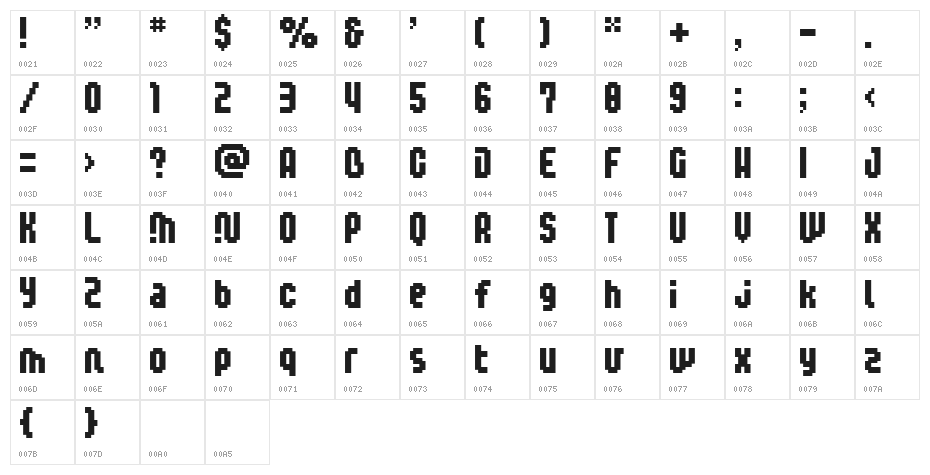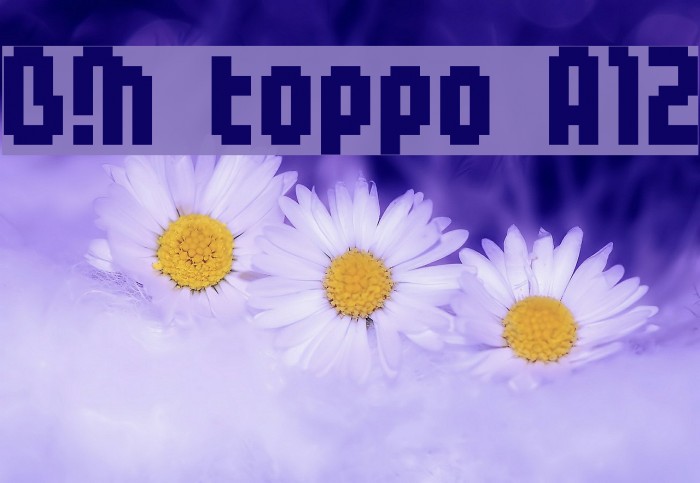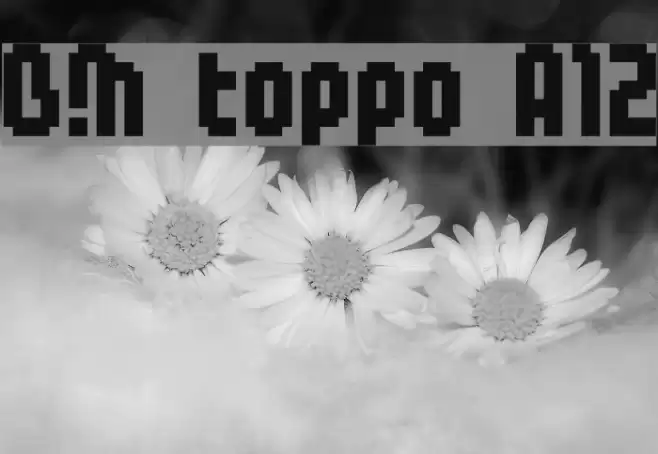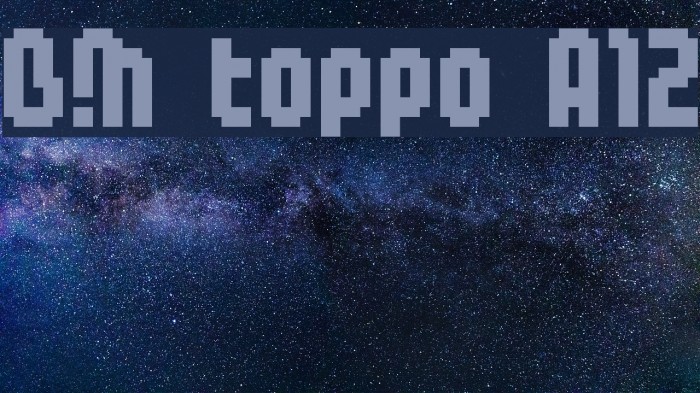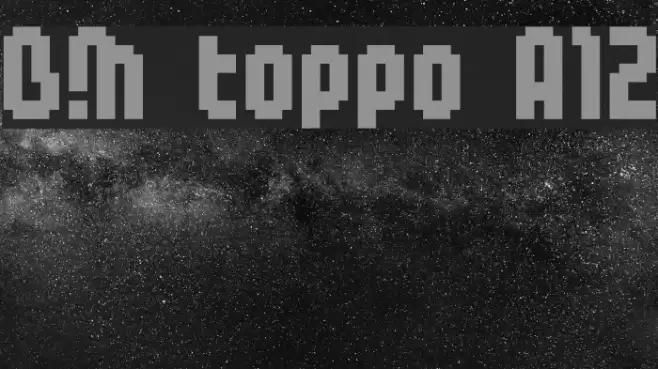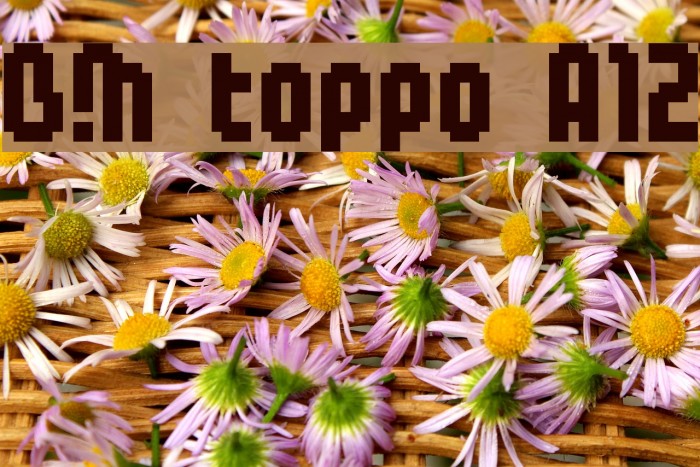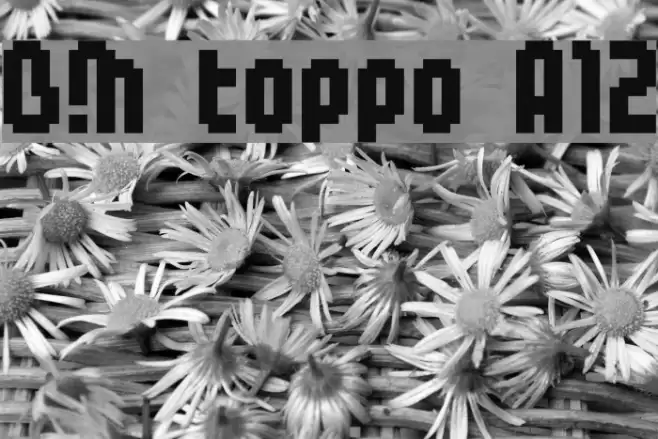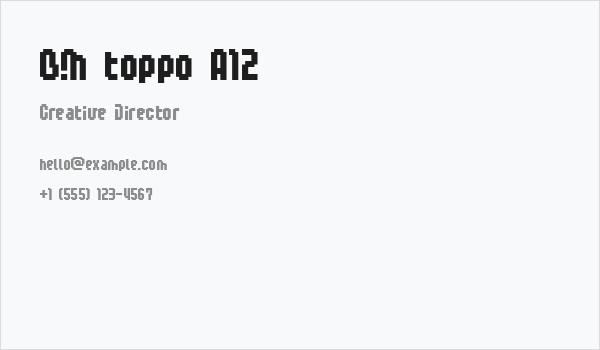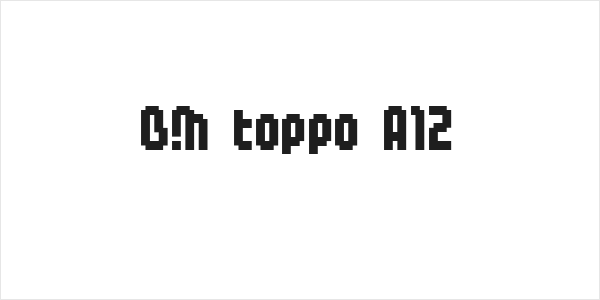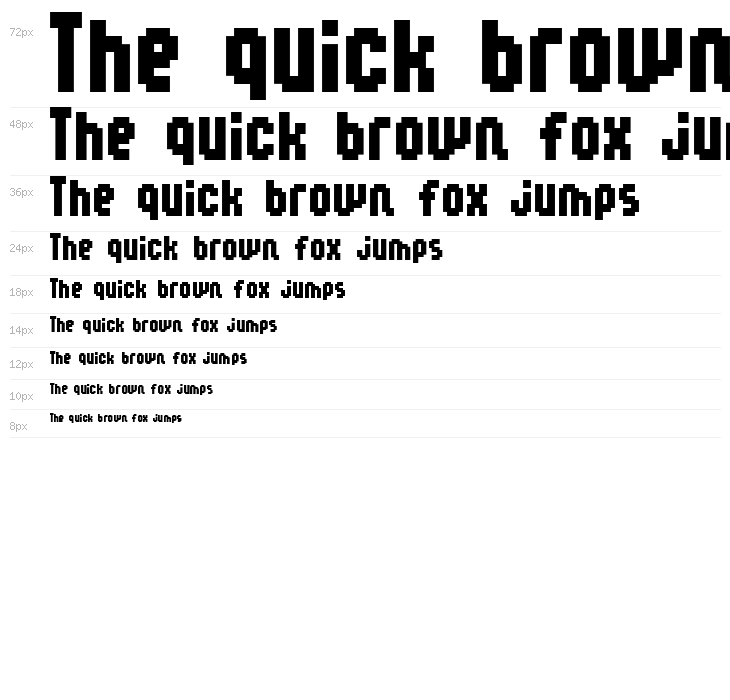
BM toppo A12 Font
BM toppo A12 Description
This font features a bold, pixelated style reminiscent of early digital or video game typography. The characters are blocky and geometric, with a uniform thickness that gives it a strong, impactful presence. The uppercase and lowercase letters maintain a consistent height, contributing to a cohesive look. The numbers and special characters follow the same design principles, ensuring readability and uniformity across all characters. This font's distinct appearance makes it ideal for projects that require a retro or tech-inspired aesthetic.
| Proposed Projects | Ideal for video game graphics, retro-themed designs, digital art, and tech-related branding. |